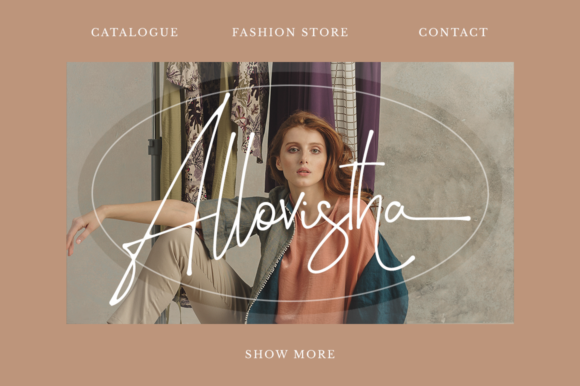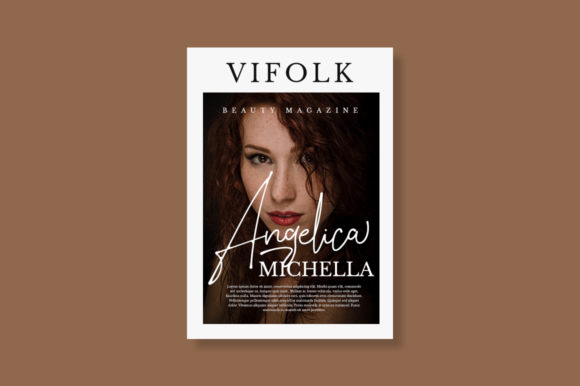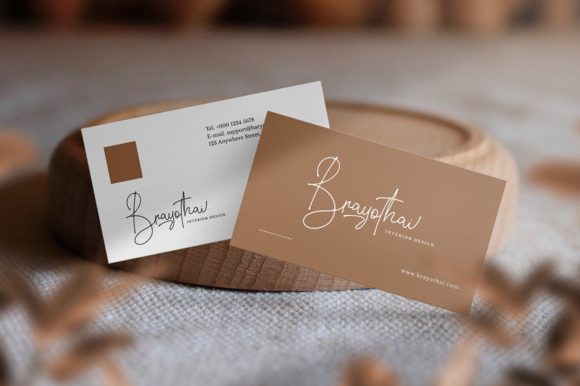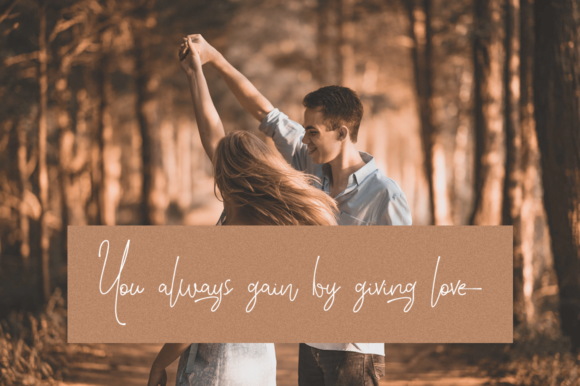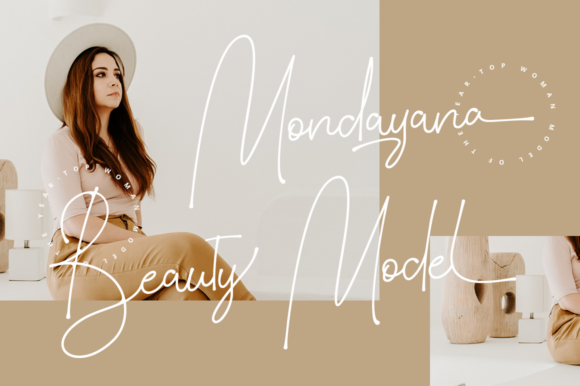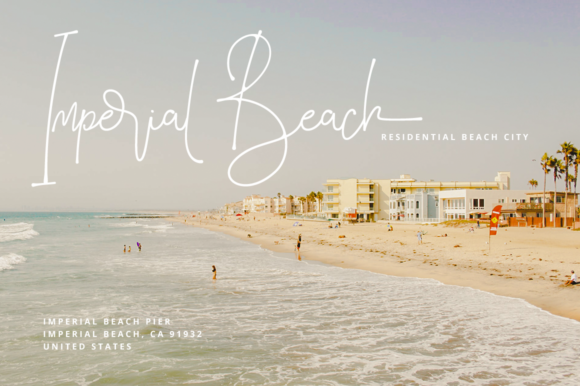
Introducing Brilliant Gemstone Font: Elevate Your Designs with Elegance and Sophistication
In the world of typography, a well-crafted font can make all the difference in transforming a design from ordinary to extraordinary. For designers and crafters seeking to add a touch of luxury and refinement to their work, the Brilliant Gemstone Font is an exceptional choice. This modern signature script font seamlessly blends classic calligraphy with contemporary style, making it an ideal addition to any design project.
What is Brilliant Gemstone Font?
Brilliant Gemstone is a thoughtfully designed font that combines the timeless elegance of classic calligraphy with the freshness of modern style. Its unique dancing baseline gives designs a sophisticated and on-trend feel, perfect for projects that demand a high level of refinement. Whether you’re working on a logo, invitation, or any other design that requires a personal touch, Brilliant Gemstone Font is sure to impress.
Key Features of Brilliant Gemstone Font
- Modern Signature Script Font: Brilliant Gemstone boasts a modern signature script style that is both versatile and stylish, suitable for a wide range of design applications.
- Classic Calligraphy Meets Modern Style: The font beautifully merges traditional calligraphic elements with a contemporary aesthetic, ensuring your designs stand out with elegance and sophistication.
- Dancing Baseline: The elegant flow of the dancing baseline adds a dynamic and trendy touch to your designs, making them more engaging and visually appealing.
- PUA Encoded: Brilliant Gemstone Font is PUA (Private Use Area) encoded, which means you can easily access all glyphs and swashes. This feature allows for greater flexibility and creativity in your designs, making it easier to customize and personalize your work.
The Brilliant Gemstone Font offers numerous benefits for designers and crafters looking to elevate their work. Its unique blend of classic and modern elements provides a distinctive look that can help any design stand out. The font’s ease of use, thanks to PUA encoding, means that accessing and incorporating the various glyphs and swashes is straightforward, saving time and effort in the design process.
Use Cases for Brilliant Gemstone Font
The versatility of Brilliant Gemstone Font makes it suitable for a wide array of design projects, including:
- Logos and Branding: Create a lasting impression with a logo that exudes elegance and sophistication.
- Invitations and Stationery: Add a touch of luxury to wedding invitations, birthday cards, and other stationery.
- Packaging: Elevate product packaging with a refined and trendy typographic style.
- Digital Media: Enhance social media graphics, blog headers, and website content with a modern and stylish font.
Brilliant Gemstone Font is a remarkable addition to any designer’s or crafter’s toolkit. Its unique blend of classic calligraphy and modern style, combined with its practical features like PUA encoding, makes it an invaluable resource for creating elegant and trendy designs. Whether you’re looking to add a touch of sophistication to a logo, invitation, or digital media, Brilliant Gemstone Font is sure to meet your needs and exceed your expectations.
With its wide range of applications and user-friendly design, Brilliant Gemstone Font is poised to become a go-to choice for designers and crafters seeking to infuse their work with a sense of luxury and refinement. Experience the difference that a high-quality, versatile font can make in your designs, and discover the creative possibilities that Brilliant Gemstone Font has to offer.